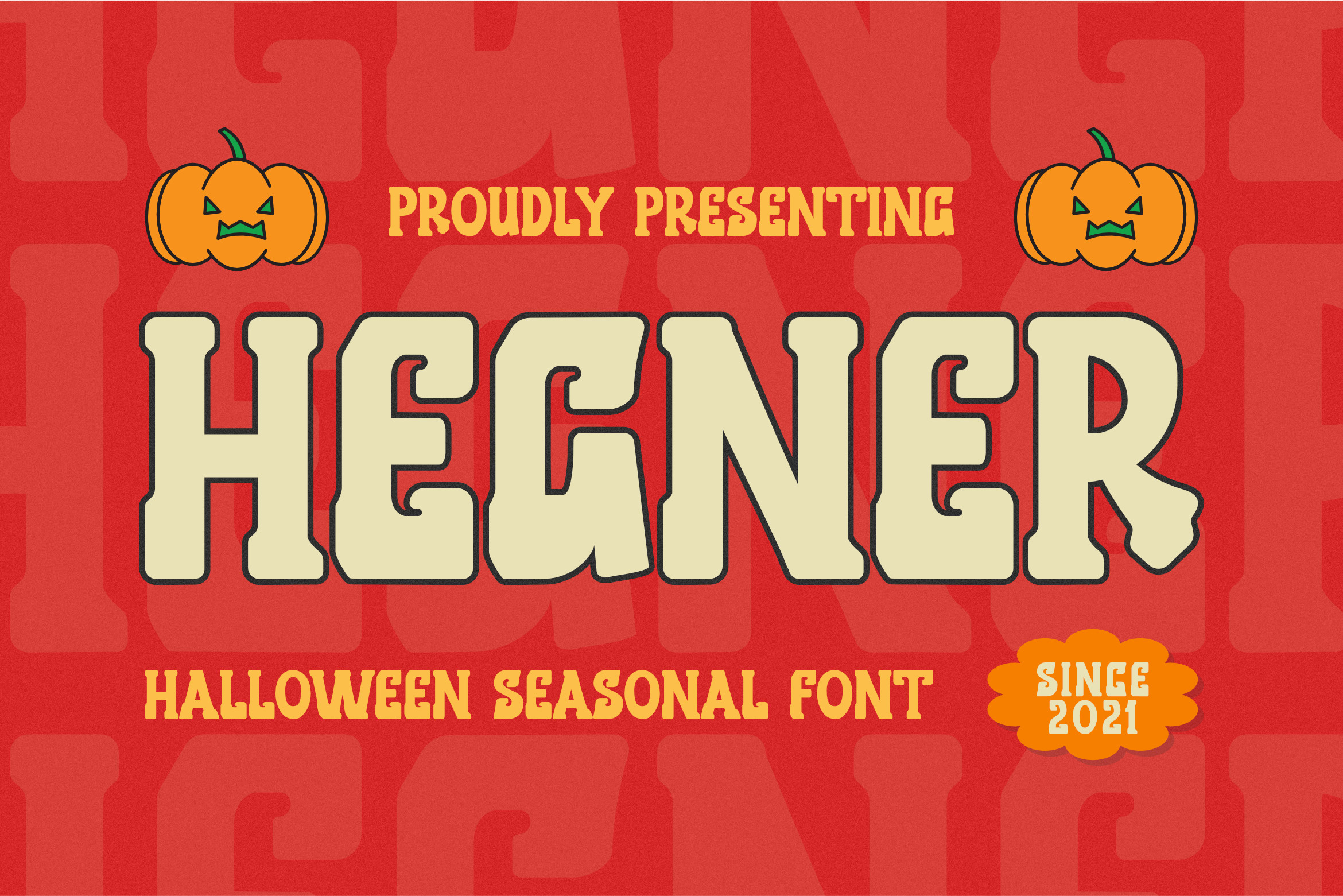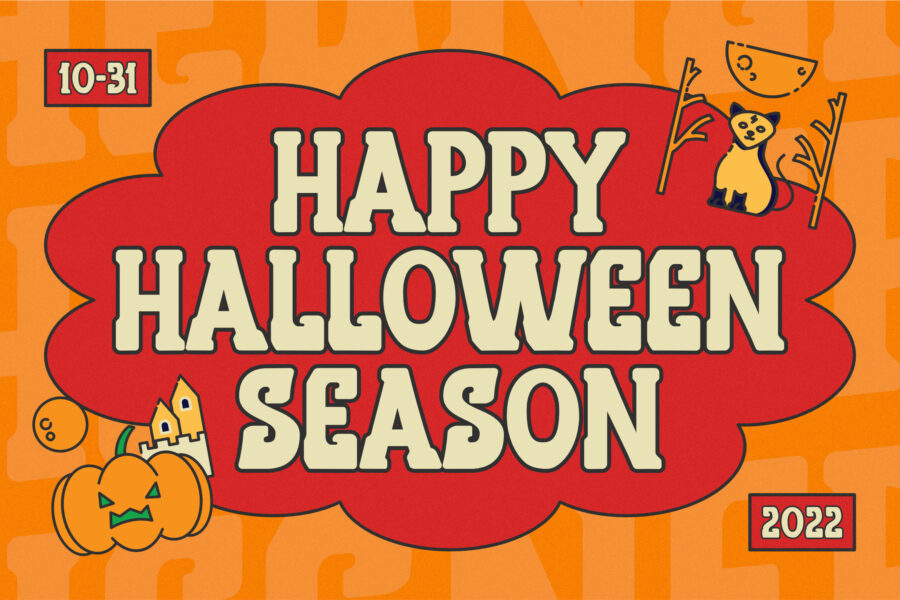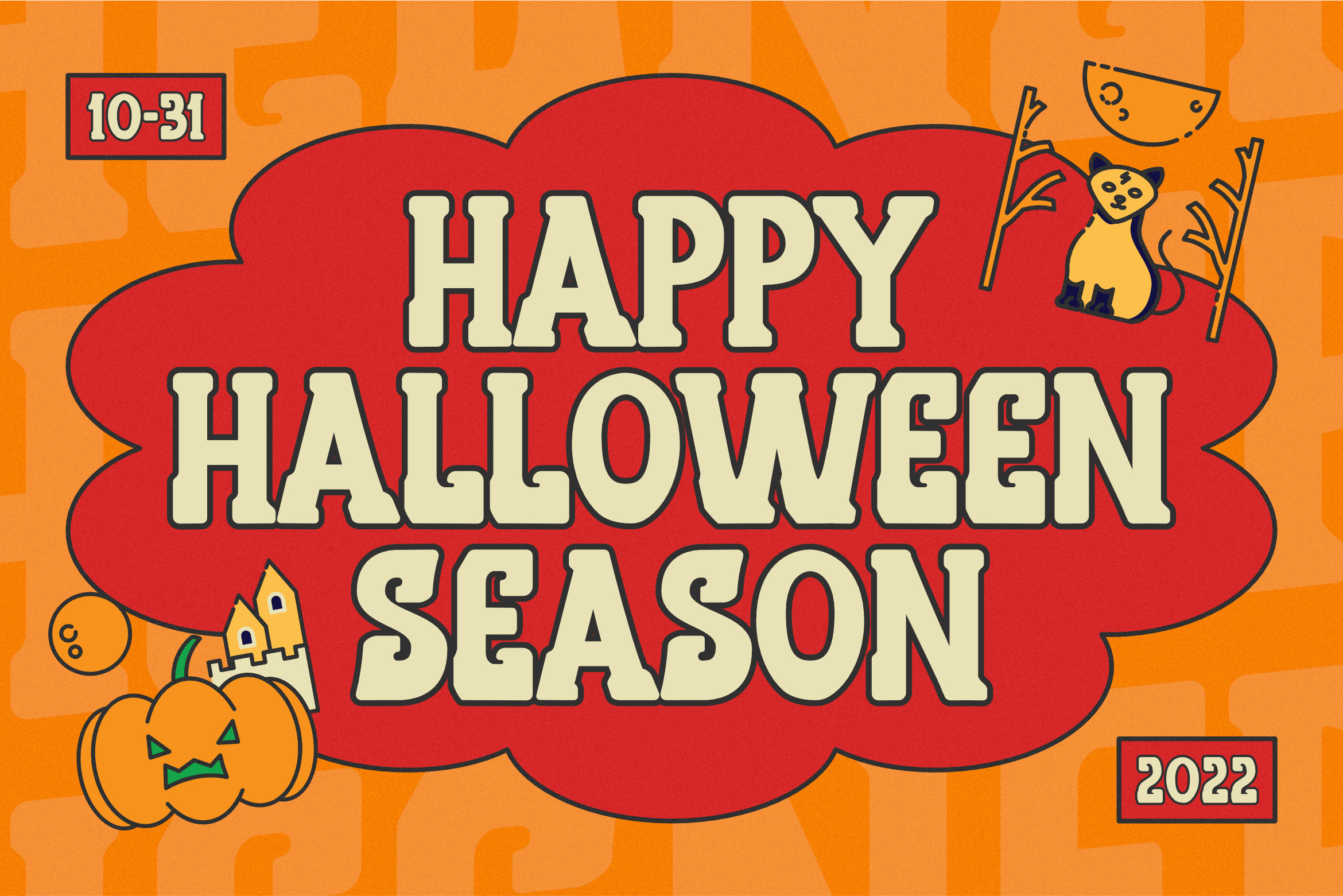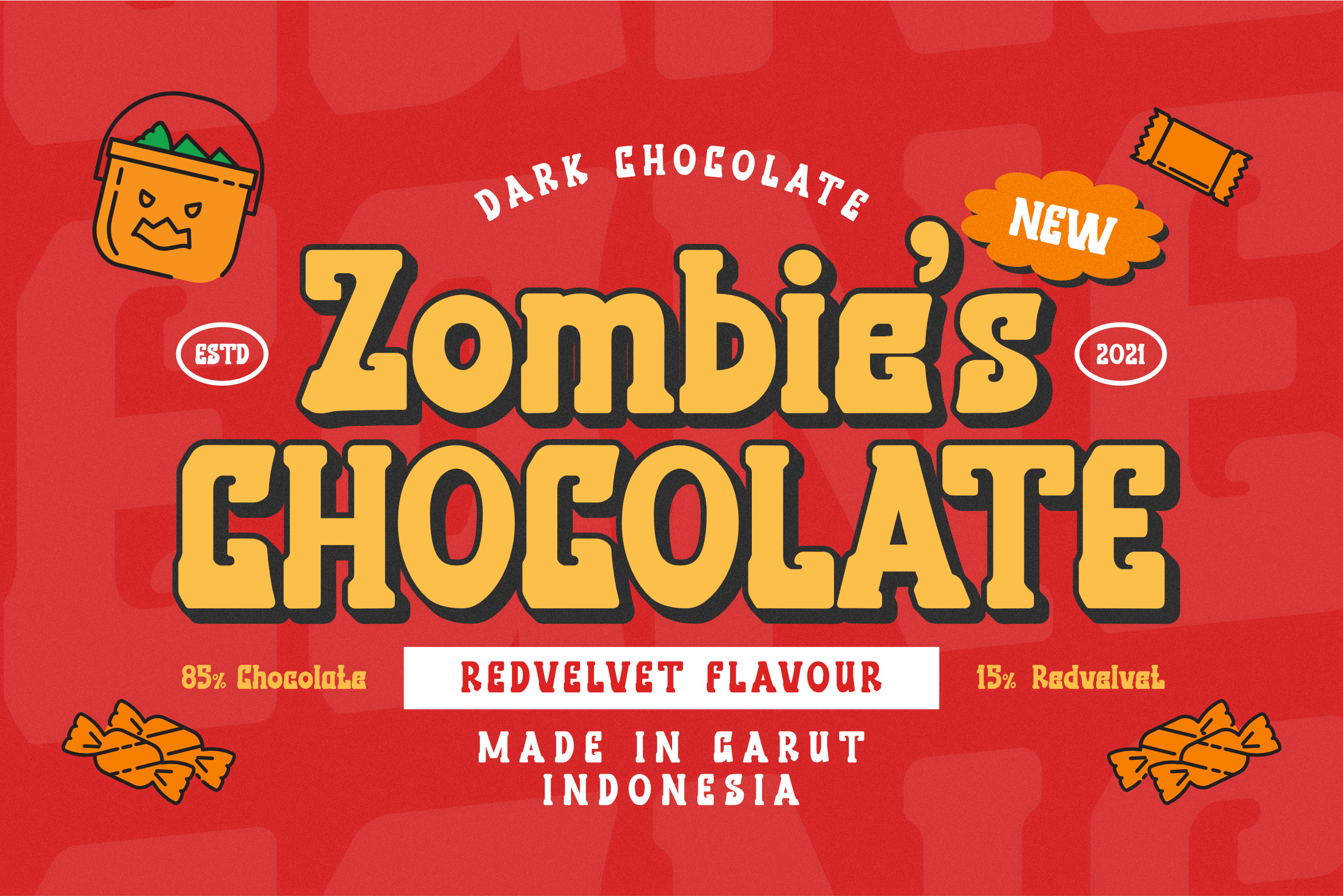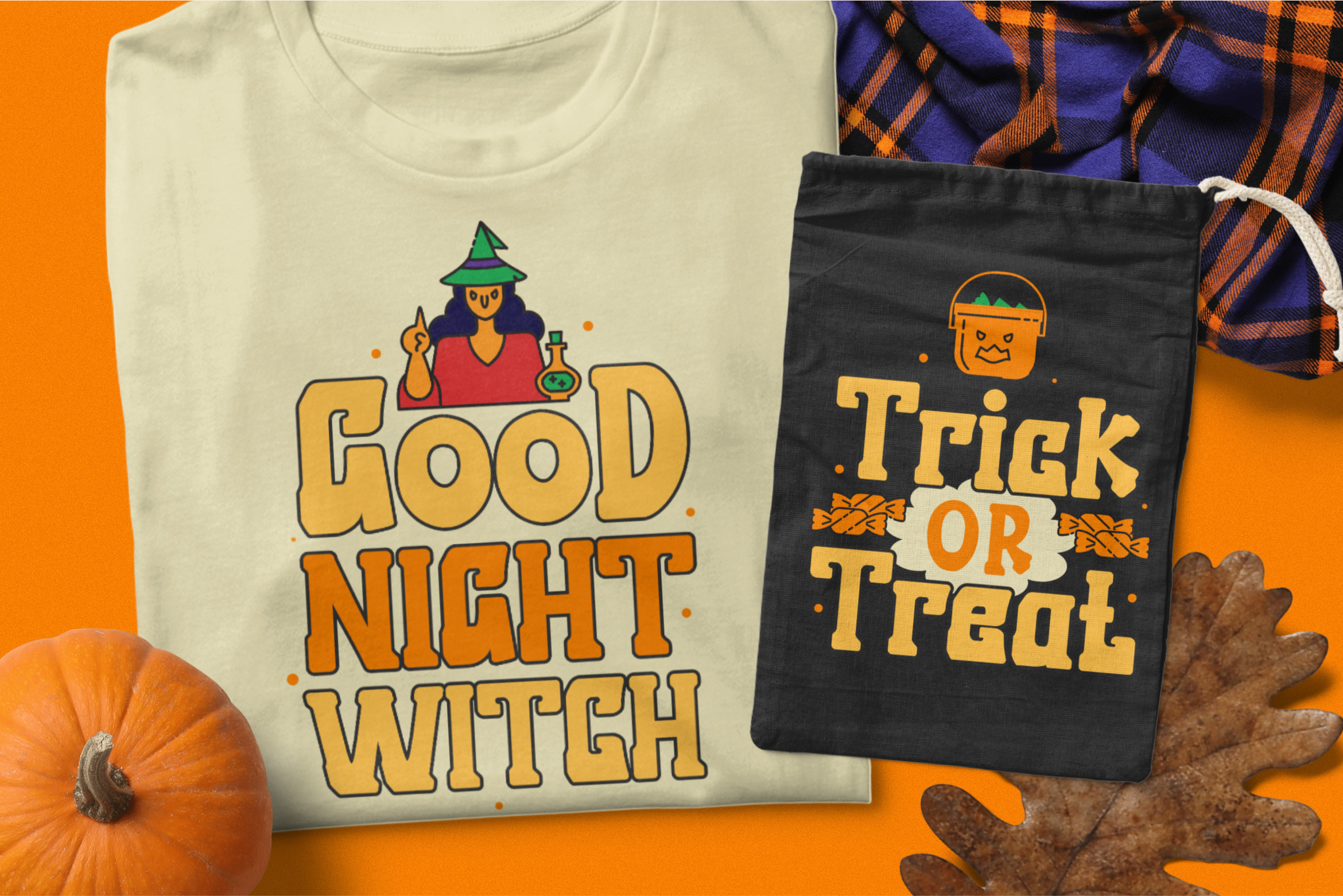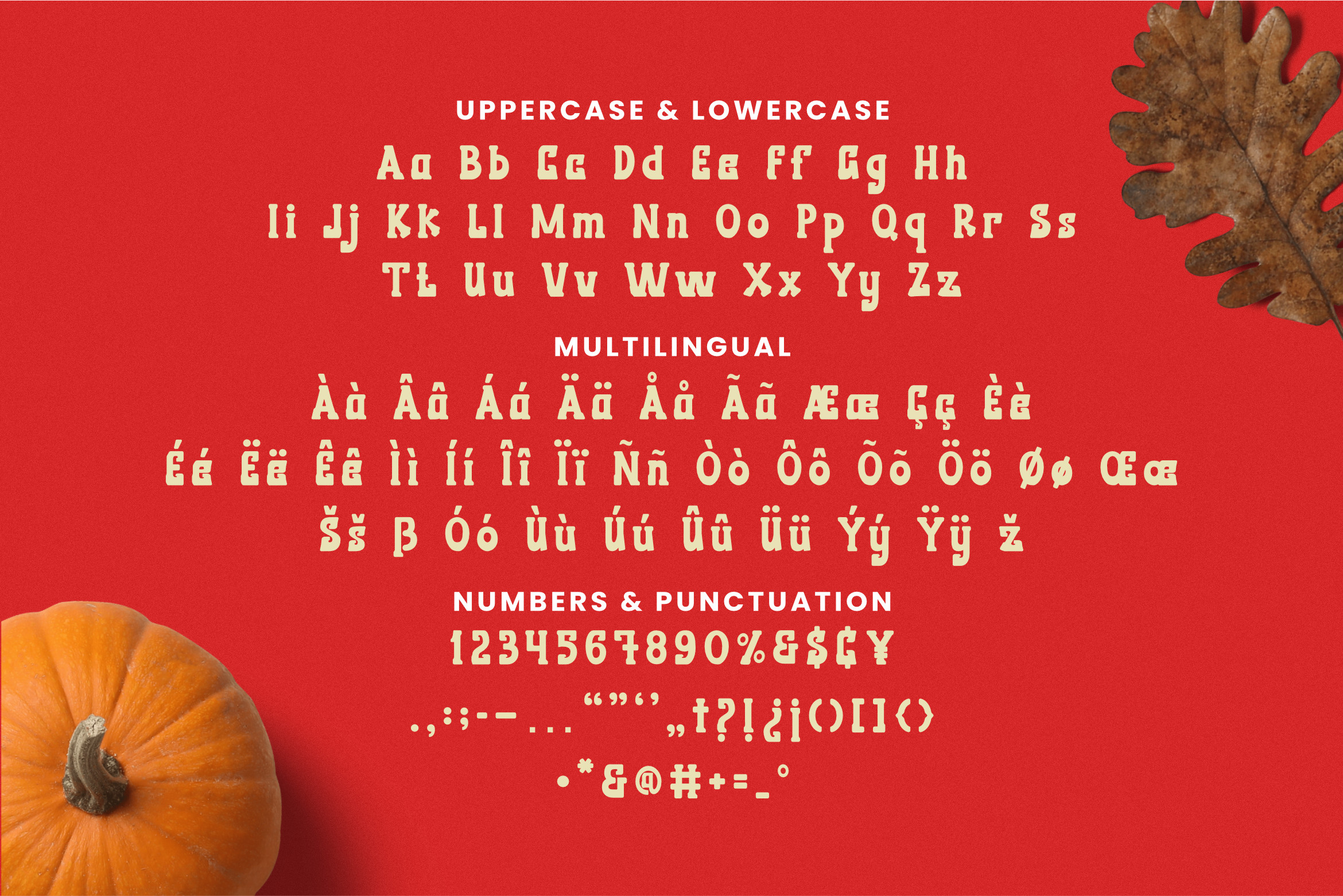
Hegner is a bold and playful Halloween font that brings a nostalgic retro vibe to your seasonal designs. Its strong blocky shapes with soft, quirky curves give off a charming and friendly look. Perfect for Halloween treats packaging, spooky posters, party invitations, or children’s merchandise. The cartoonish aesthetic makes Hegner approachable for all ages, while still retaining that festive October spirit.
Equipped with uppercase and lowercase letters, multilingual support, punctuation, and numerals, Hegner is both versatile and fun to use. Whether you’re creating apparel, signage, or digital content, this font adds a delightful punch of personality and Halloween cheer to every project.
Hegner